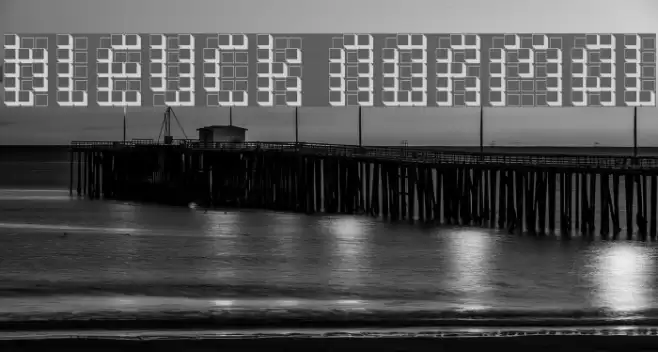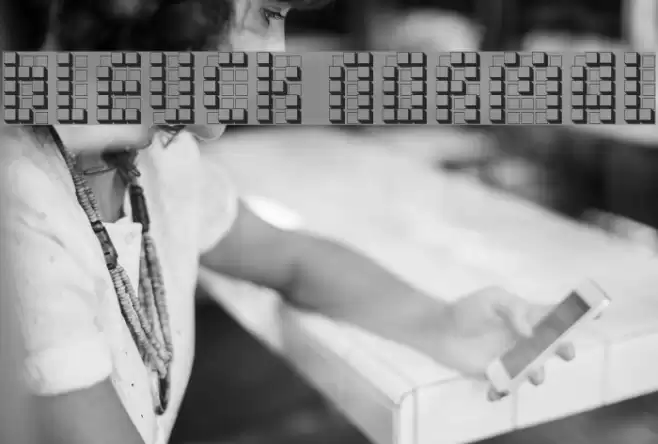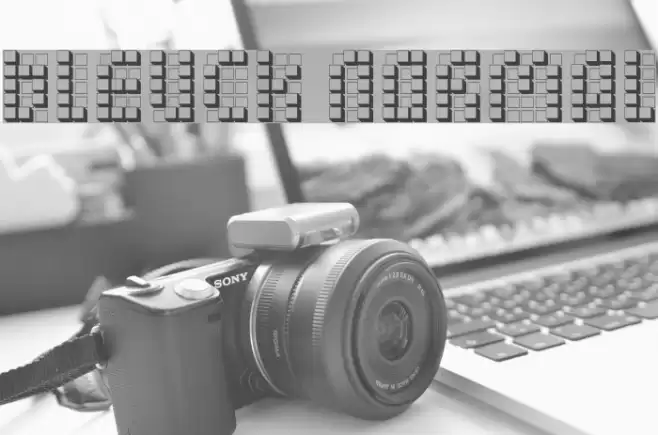
bleuck normal Font
bleuck normal Description
This font features a unique, blocky design with a three-dimensional effect created by the use of small squares. Each character is composed of a grid-like pattern, giving it a pixelated and digital appearance. The bold outlines enhance the visibility and add depth to the characters, making them stand out. The uppercase and lowercase letters maintain a consistent style, while the numbers and special characters follow the same geometric pattern. This font is ideal for projects that require a modern, tech-inspired look.
A blocky, pixelated font with a 3D effect, ideal for tech-themed designs from Uncategorized fonts.
- Proposed Projects: Video game titles, tech company logos, digital art projects, and futuristic posters.